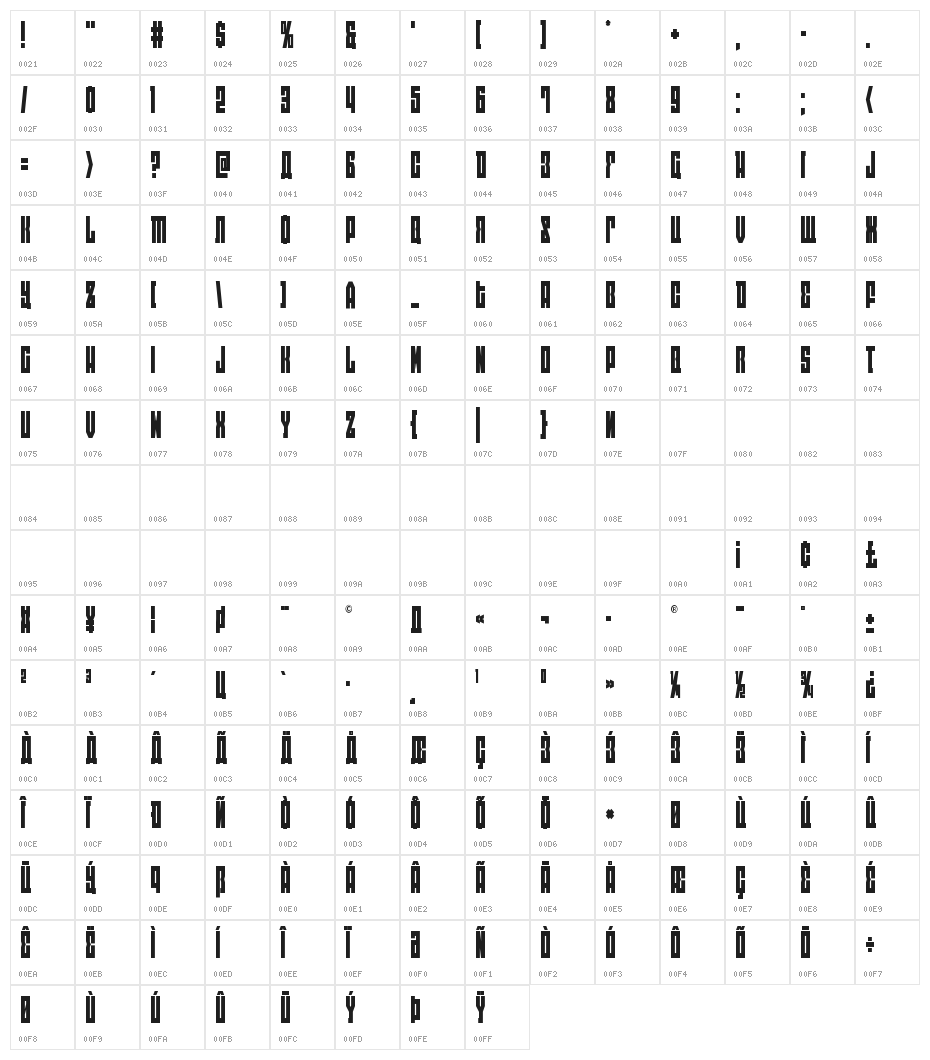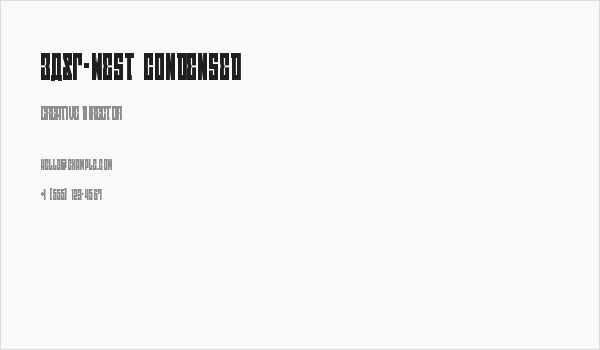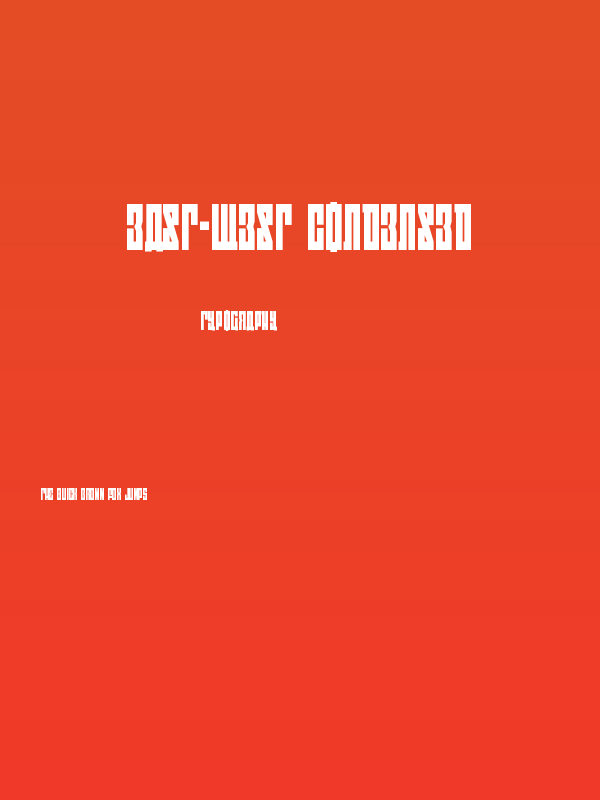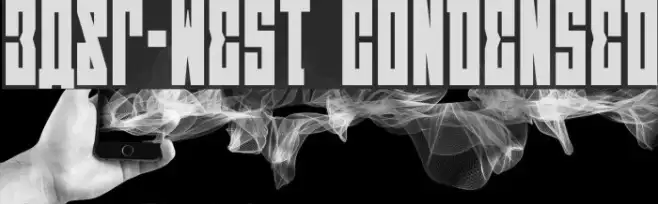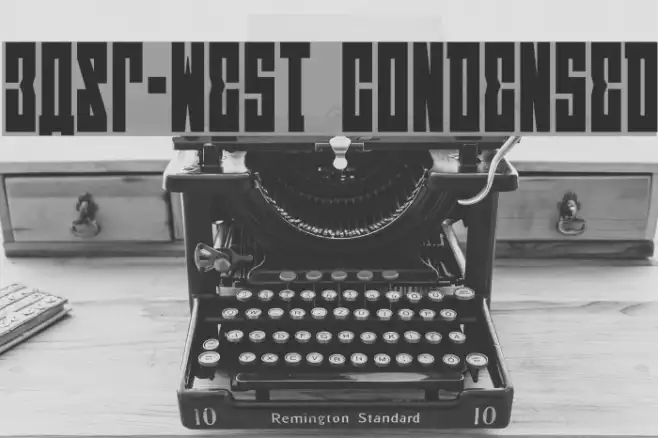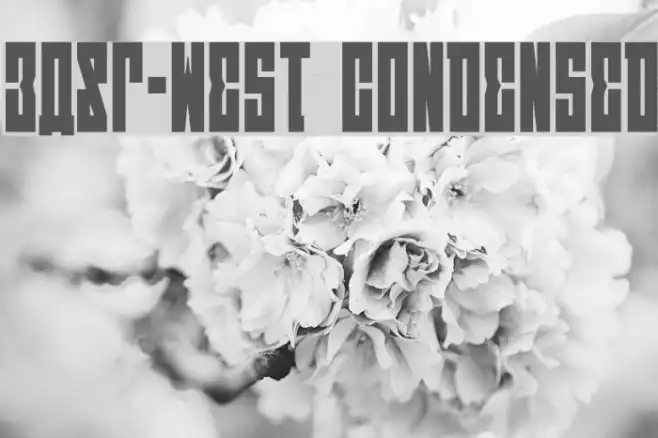
EAST-west Condensed Font
EAST-west Condensed Description
This font features a bold and condensed style with a strong geometric influence. The uppercase letters are characterized by their blocky, angular shapes, giving them a commanding presence. The lowercase letters maintain the same boldness and angularity, ensuring consistency across the typeface. The numerals are equally bold and geometric, making them stand out prominently. Special characters are designed to match the overall aesthetic, with sharp angles and a solid structure. This font is ideal for projects that require a strong visual impact and a modern, edgy feel.
EAST-WEST-CONDENSED UPPERCASE
EAST-WEST-CONDENSED LOWERCASE
EAST-WEST-CONDENSED OTHER CHARS